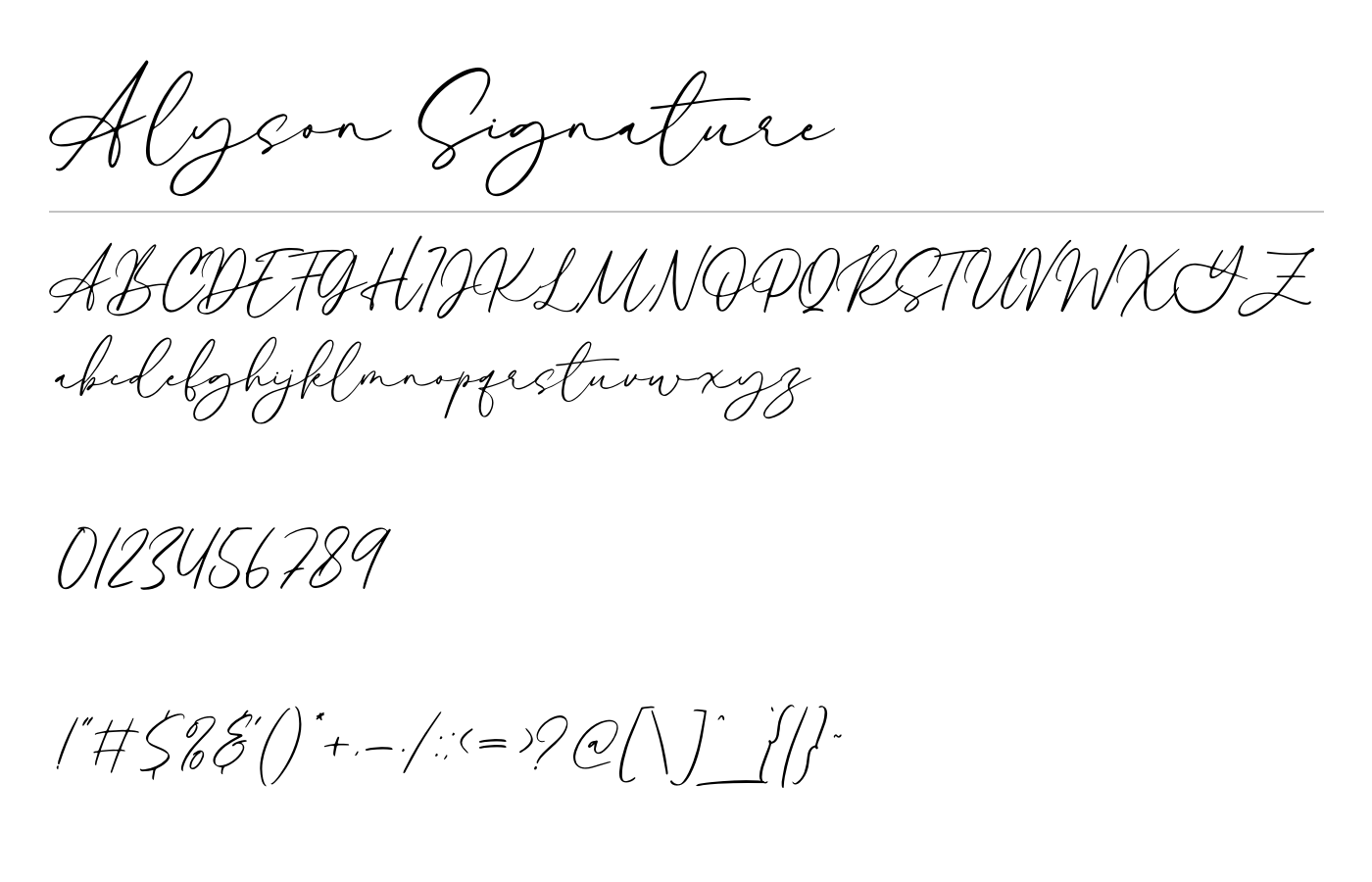
Alyson Signature Font is an elegant and delicate script typeface that mimics natural handwriting with a flowing, airy feel. Its thin, slightly textured strokes and smoothly connected letters create a sophisticated, personal touch, making it ideal for branding, invitations, and stylish editorial design. This font works beautifully where a refined, handwritten appearance is desired to convey warmth and authenticity.
Alyson Signature Font
About Alyson Signature Font
| Font family | Alyson Signature Font |
| Designer | Rangga Singgih Subekti |
| Trademark | Subectype |